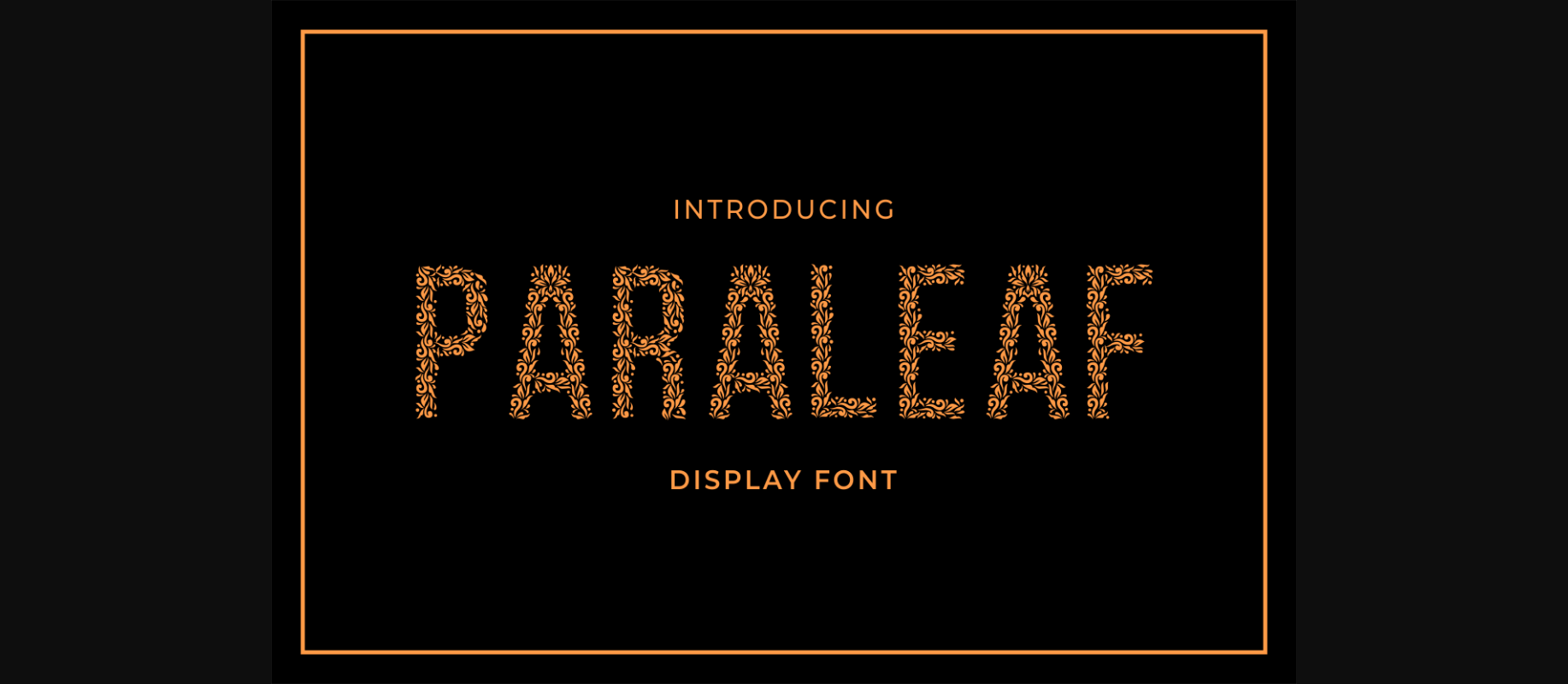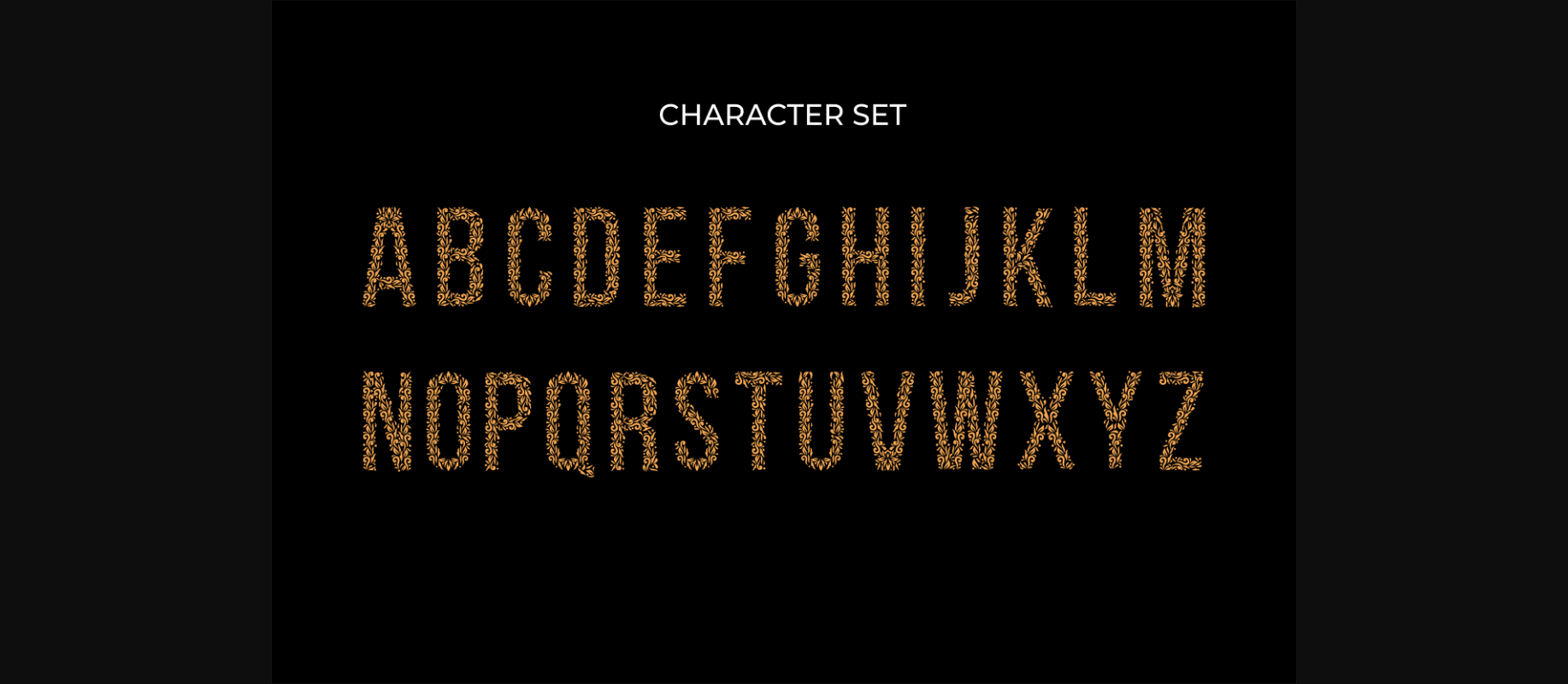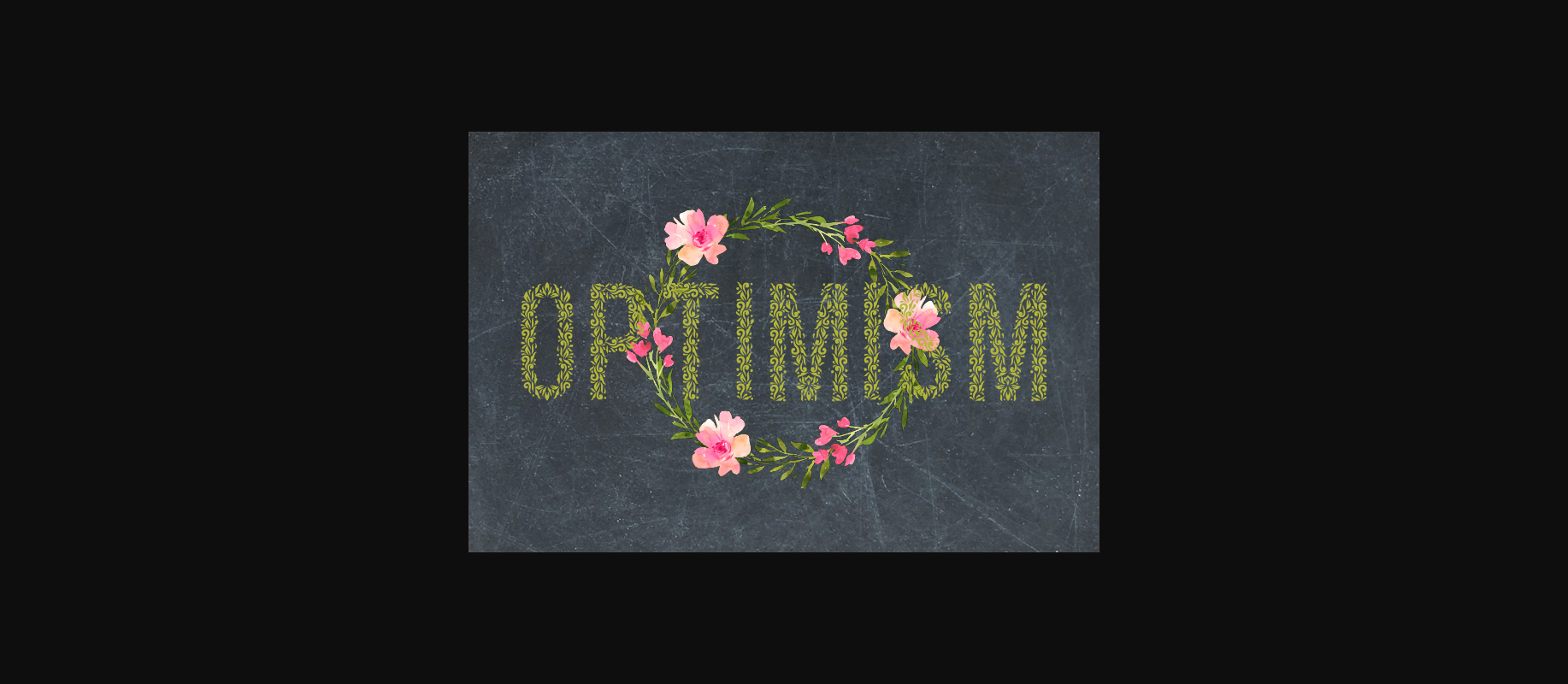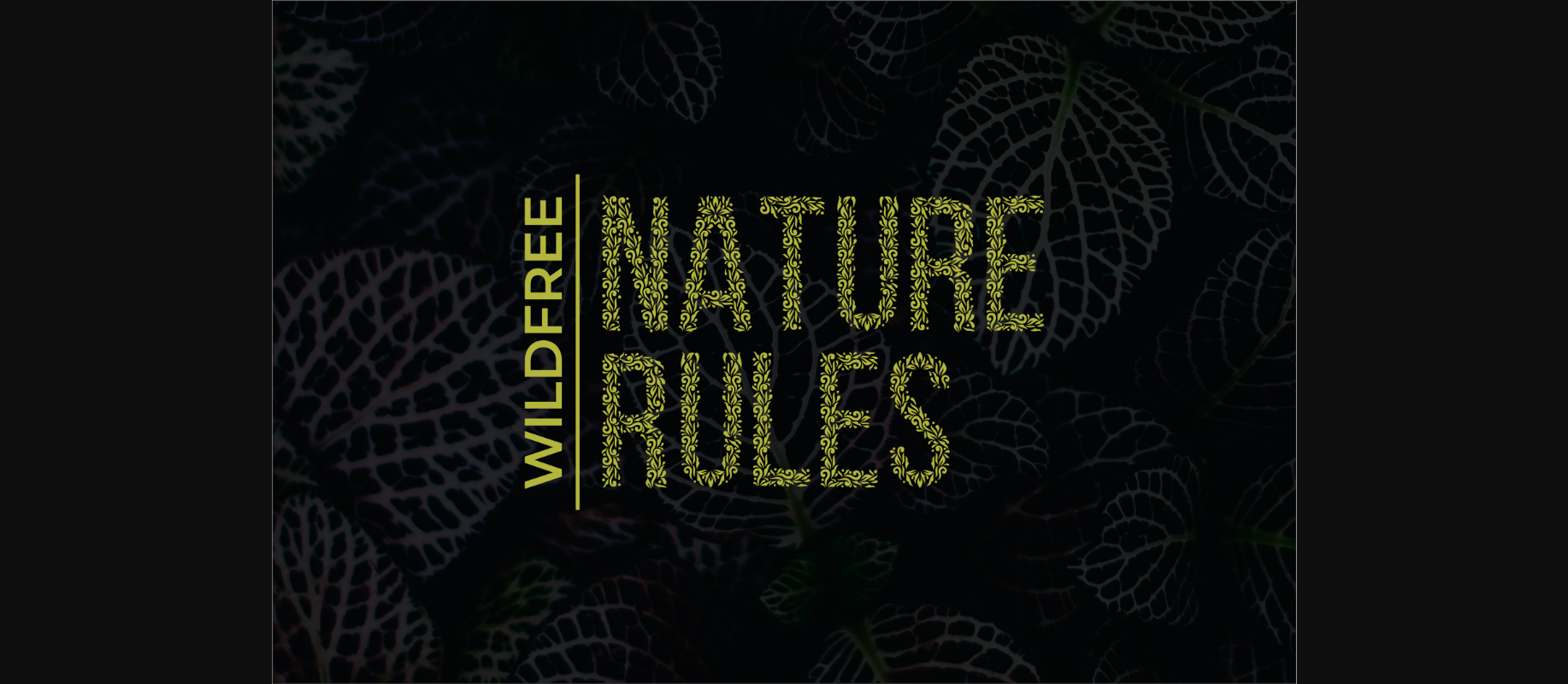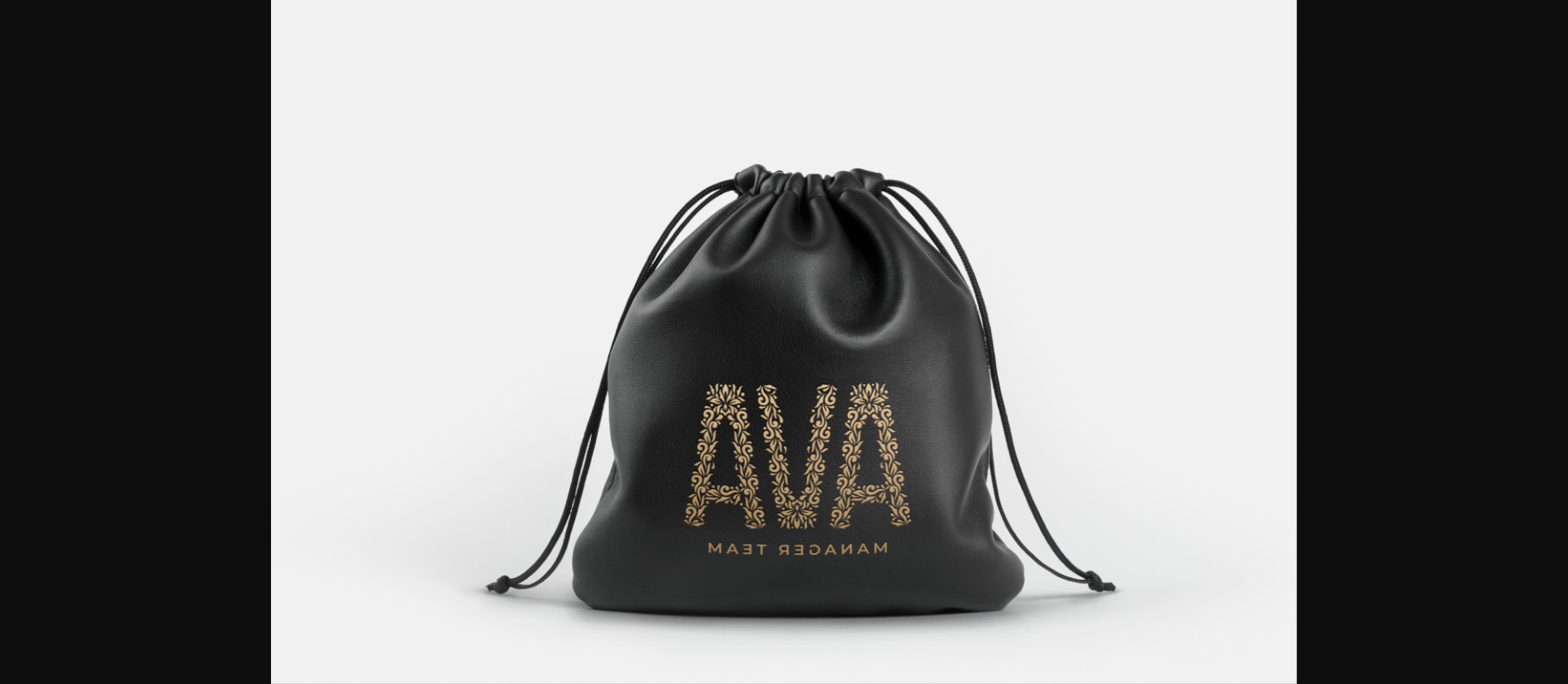
Paraleaf Font
About Paraleaf Font
Inspired by the beauty of nature, Paraleaf is a stunning all-caps decorative font with an energetic feel. It’s best used for any nature-themed project that requires an organic and green twist!